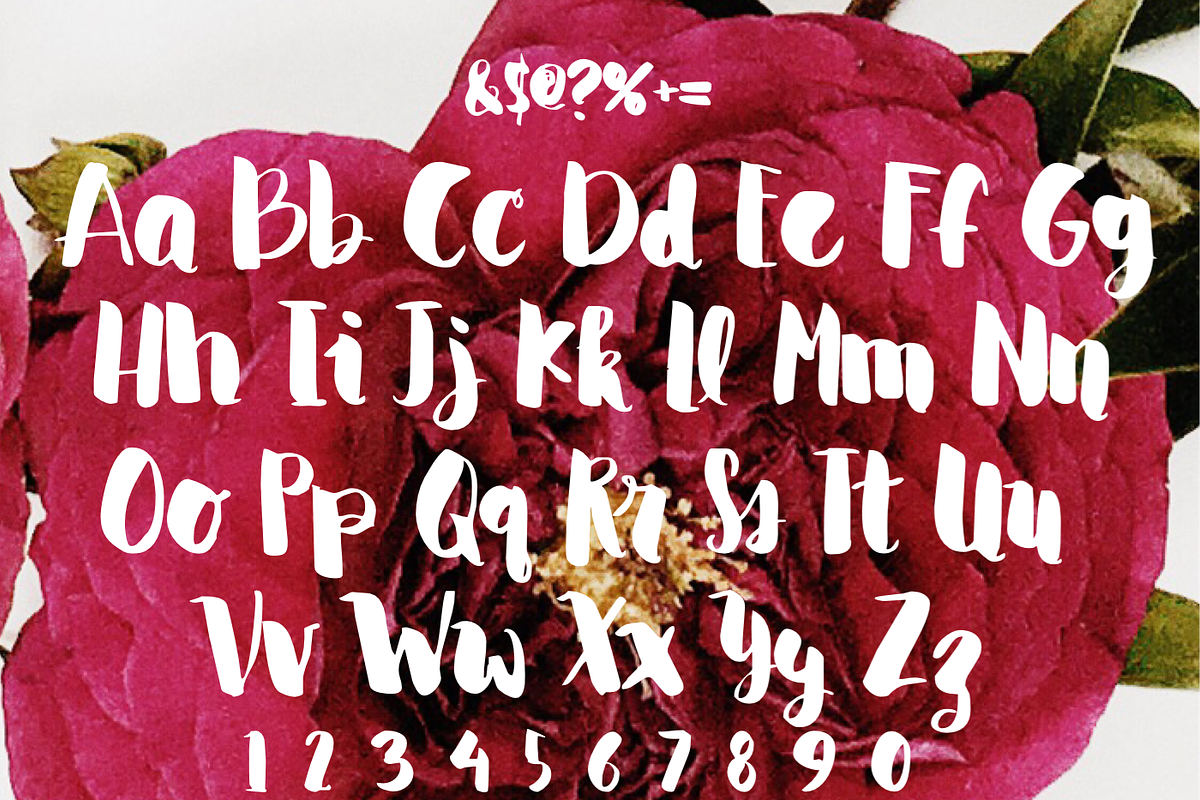
COREY Hand Lettered Font
COREY Hand Lettered Font by Rhonna Designs is a font selected for branding, posters, packaging, typography.
Why COREY Hand Lettered Font is worth a look
COREY Hand Lettered Font by Rhonna Designs fits naturally into Branding, posters, packaging, typography.